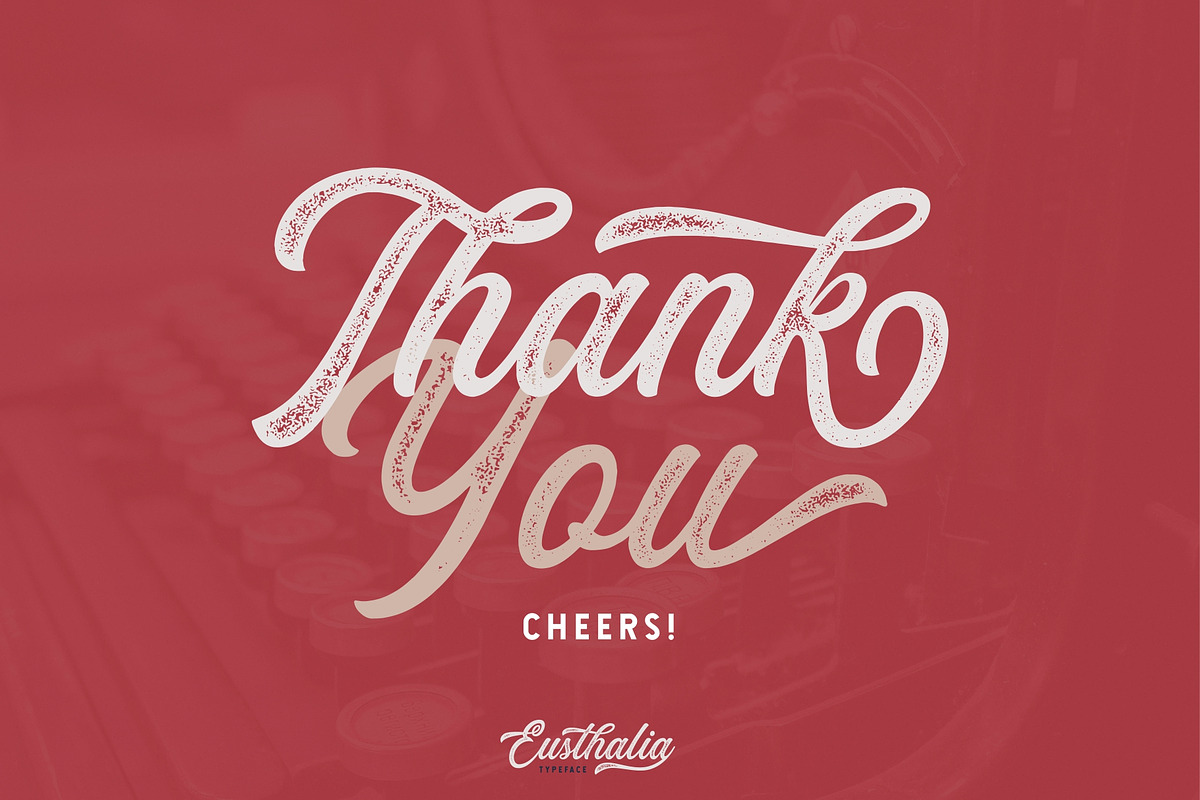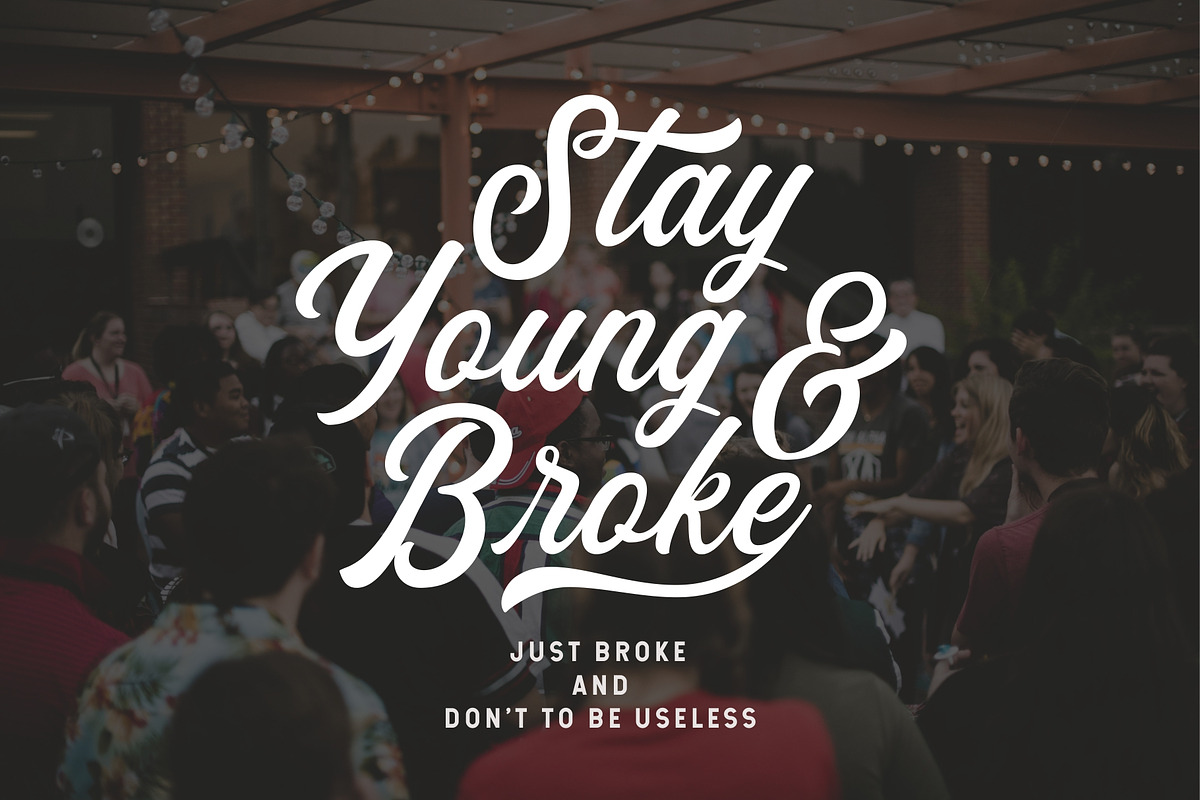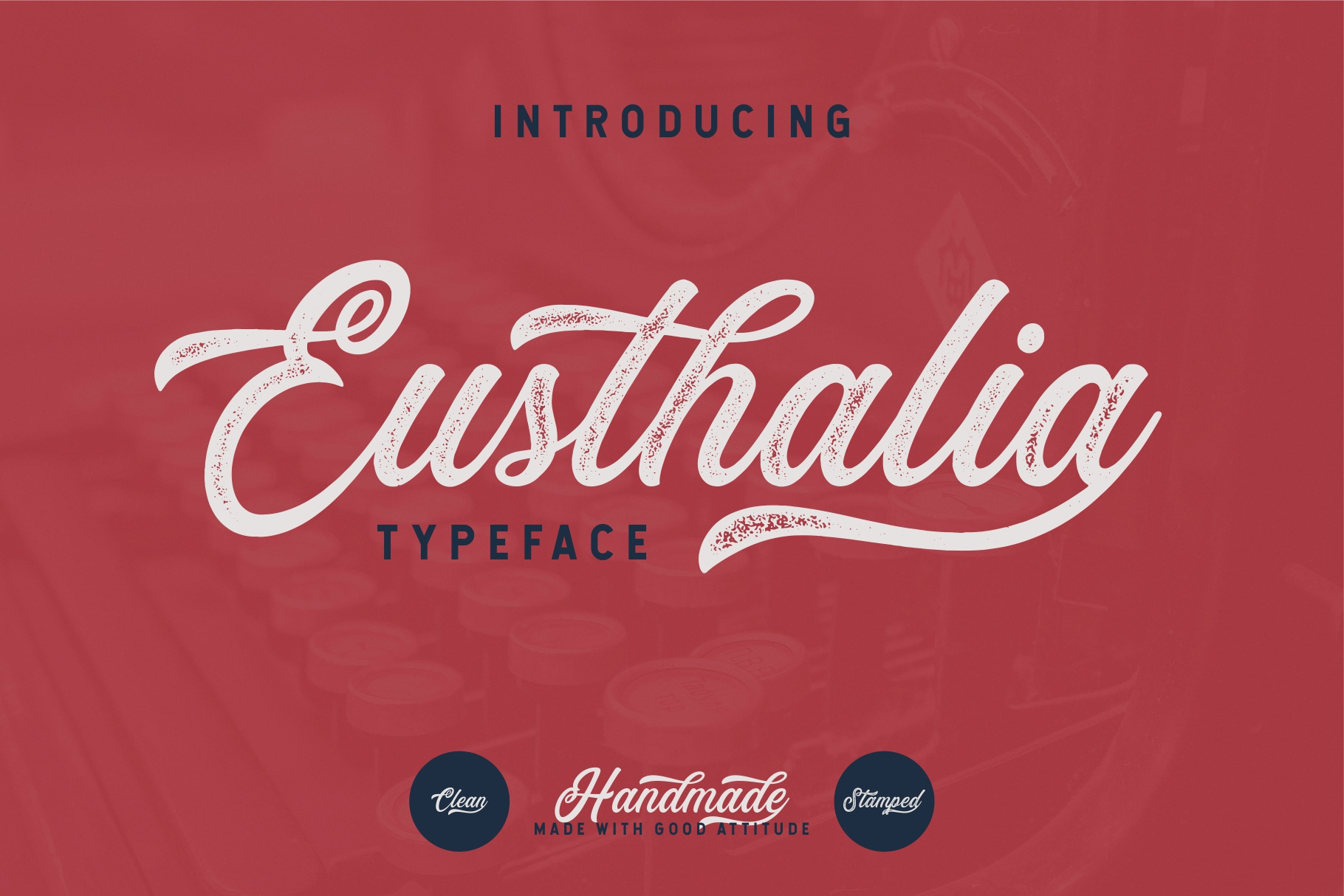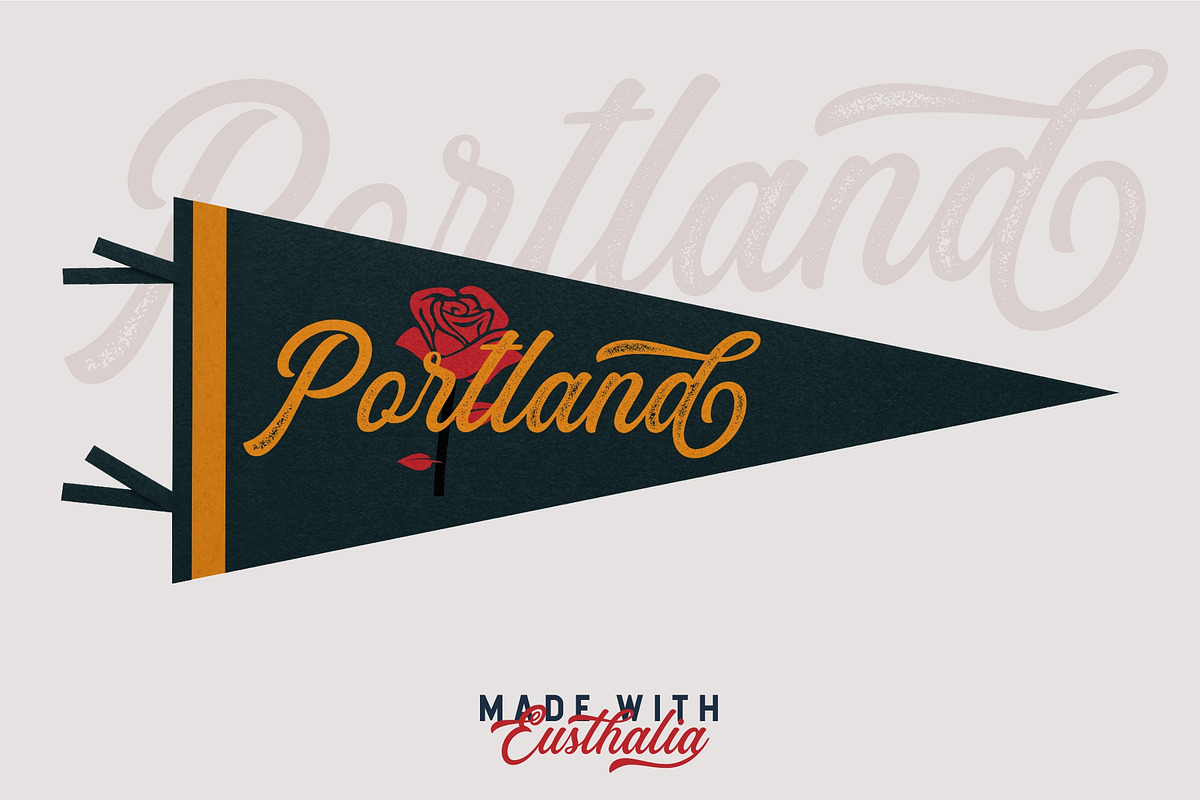
EUSTHALIA TYPEFACE
Hello brother and sister! We introduce our new product called Eusthalia Typeface.
Eusthalia Typeface is a script font which has two styles, Clean and Stamped. With those kind of styles, Eusthalia Typeface can be use in vintage designs. Eusthalia Typeface also has a standart Multilingual Support.
Eusthalia Typeface is great for Logotype, Branding Design, Logo Design, Digital Lettering Arts, T-Shirt/Apparel, Poster, Magazine, Signs, Advertising Design, and any vintage design needs.